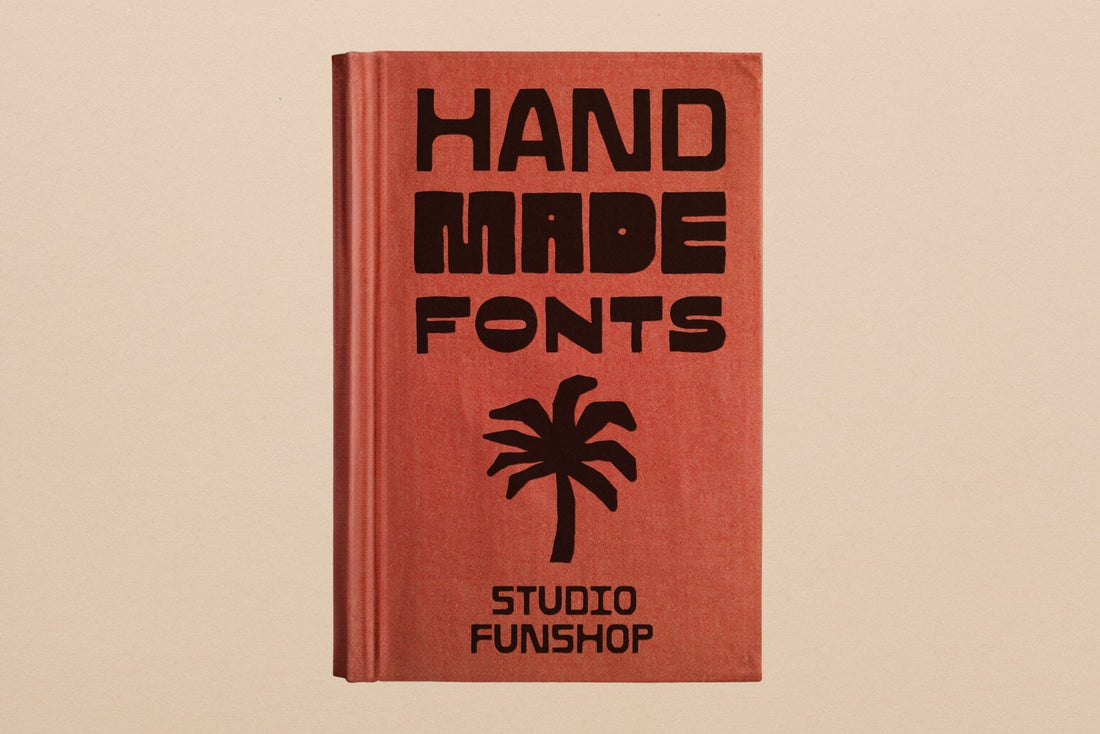
16 Types of Handwritten Fonts (And the Best One for Your Handmade Brand)
Handwritten and hand-lettered fonts aren't one style, they're a whole family of pretty different looks, and knowing which type you're actually after makes picking one a lot easier than scrolling through a hundred options that all get lumped under "handwriting." Some are polished enough to pass as print. Some look like they were scrawled on a napkin on purpose. Both are legitimate choices, they just say different things about a brand.
Here are the types worth knowing, along with the font from my shop I'd point to as the clearest example of each.
The Types, Explained Through Real Fonts
1. The Vintage Label Font
Bold, worn-in lettering pulled from old packaging, tins, and film titles, the kind of type that looks like it's been on a shelf for decades. Handmade Sans is my example here, hand drawn with plenty of alternates, built to feel established and a little rugged.
Brands that want to feel rooted and lived-in, like they've been around a while, even if they haven't.
2. The Quiet Semi-Script
Part print, part script, this type is calm and understated rather than showy. Organic Hand blends relaxed strokes and natural curves with real legibility, so it reads as soft and considered.
Brands that want to feel quietly premium or natural, without being loud about it.
3. The Genuine Handwritten Note
This type is built to look like an actual note someone wrote. Good Notes uses three hand-drawn variations of every character, so no two letters match exactly. It also works well as an accent, notations, subheaders, anything that benefits from feeling personal rather than polished.
Brands that want to feel personal and human, like a note from an actual person instead of a company.
4. The Bouncy, Wiggly Sans
Playful and a little irregular, with rounded edges that never sit quite still. Smoothie has wiggly edges and smooth curves that read as youthful and energetic. Strong fit for social-first brands or colorful product lines that need to feel alive on a screen.
Brands that want to feel fun and alive rather than composed.
5. The Messy, Textured Scrawl
Rough on purpose, with texture that makes clear a hand was involved, not a printer. Scratchy Font Set or Notie both lean into that unpolished quality rather than smoothing it out. It's not perfect, it's raw, it's real.
Brands that want to say "I made this myself" and mean it.
6. The Hand-Painted Serif
Classic serif shapes with visible brush texture and soft edges, a little more elevated than most handwritten fonts without losing warmth. Painted Serif is the clearest example, good for a logo or header where you want people to sense quality and care at a glance.
Brands that want to feel a little refined, without going full formal.
7. The Storybook Italic
A hybrid that sits between script and serif, elegant but still approachable, with a sense of nostalgia baked in. Storybook was inspired by old book covers and editorial lettering.
Brands that want to tap into the nostalgia at the heart of their audience and feel like part of a bigger story.
8. The Realistic, Nostalgic Handwriting
This type looks like someone's actual handwriting rather than a stylized version of it, the kind of font that feels right layered over a photo or scribbled next to a memory. Wonderful leans sincere rather than styled.
Brands built on sentiment and connection, ones that want to feel personal rather than overly designed.
9. The Retro-Modern Hand-Lettering
Vintage charm updated enough to still feel current instead of dated. Very Font Family lands right in that middle ground.
Brands that want the warmth of nostalgia.
10. The Everyday Handwritten Sans
Relaxed rather than decorative, closer to plain handwriting than hand-lettering. Imperfect is the everyman's font, good for everyday products that want to just feel approachable and dependable. And, it stays highly legible even at small sizes.
Brands that want to feel approachable and dependable.
11. The Reverse Contrast Font
Baddie, Quirkie, and Oddball are all examples of this one, fonts where the usual rules of contrast get flipped, thick where you'd expect thin, chunky and a little rebellious by design. Each has its own personality: Baddie leans bold and casual, Quirkie leans odd and chunky, Oddball comes in three heights for even more range.
Brands that want to feel bold and a little rule-breaking, unafraid to look different on purpose.
12. The Decorative, Experimental Font
Bold, emotive, and a little abstract, this type isn't trying to be uniform from letter to letter. Artsy is the clearest example, with shapes that shift from geometric to organic and sharp to soft within the same word.
Brands that want bubble energy with more texture and personality, less rounded and tidy, more hand-drawn and loose.
Picking a Feeling, Not Just a Font
Once you know the feeling you're after, the actual font choice gets a lot easier. A vintage label font and a clean bubble font are both hand-drawn, but they'll make a brand feel like two completely different businesses. Start with the feeling you want people to walk away with, then let that point you to the specific font that delivers it.